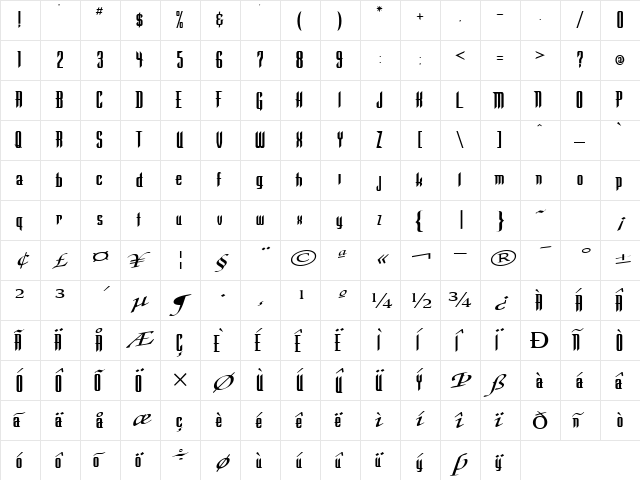
PicadorSSK Regular
Design Context for PicadorSSK Typeface
PicadorSSK is a composed and adaptable typeface that performs quietly and consistently across a wide range of design contexts.